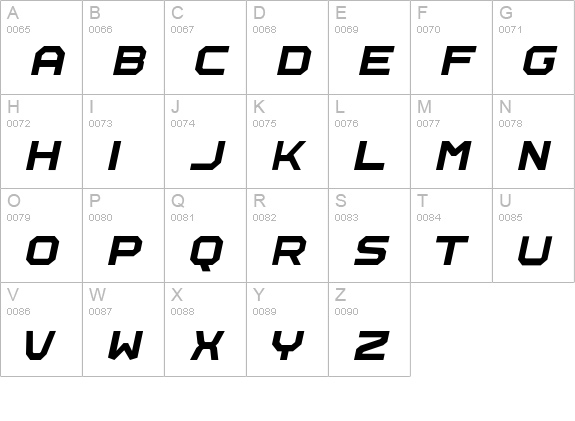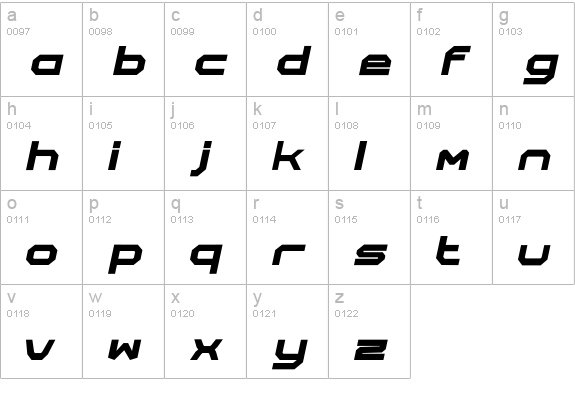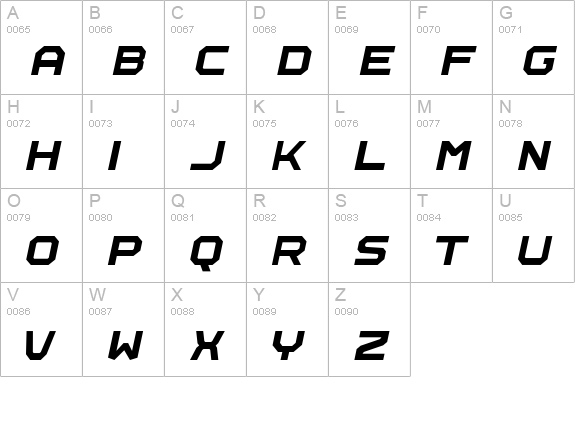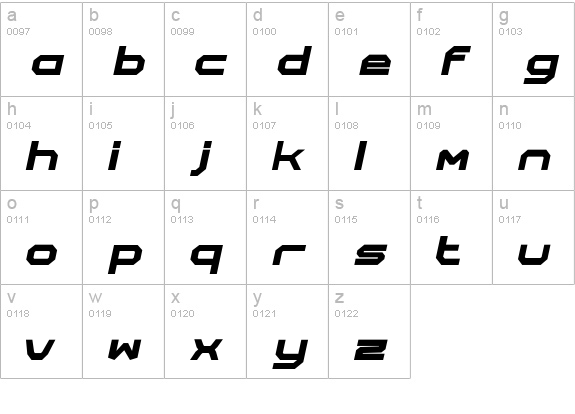
Rally-Italic is a distinctive, italic variant in the Rally typeface family \xE2\x80\x94 well suited to design and typography projects.
Rally-Italic font is a stunningly elegant and versatile typeface that exudes a sense of sophistication and grace. Its sleek and slanted letterforms capture attention and add a touch of modernity to any design project. Designed with utmost care and precision, Rally-Italic font effortlessly combines classic elements with a contemporary twist, making it suitable for a wide range of applications. Whether you are crafting a wedding invitation, designing a logo, or creating a website, this font will elevate your work to new heights of professionalism and style. One of the most remarkable aspects of Rally-Italic font is that it is available for free. Yes, you read that right! You can now download this incredible font without spending a single penny. FontsMarket.com is proud to offer Rally-Italic font as part of their extensive collection of high-quality fonts. With just a few clicks, you can access this font and start incorporating its unique charm into your design projects. Rally-Italic font not only impresses with its visual appeal but also with its ease of use. Its clean and legible letterforms ensure that your message is conveyed with clarity and impact. The italicized slant adds a touch of dynamism and flair, making your text stand out from the crowd. So, why wait? Take advantage of this amazing opportunity to enhance your designs with Rally-Italic font. Download it now, completely free of charge, at FontsMarket.com. Experience the beauty and versatility of this font and watch as your creativity soars to new heights.